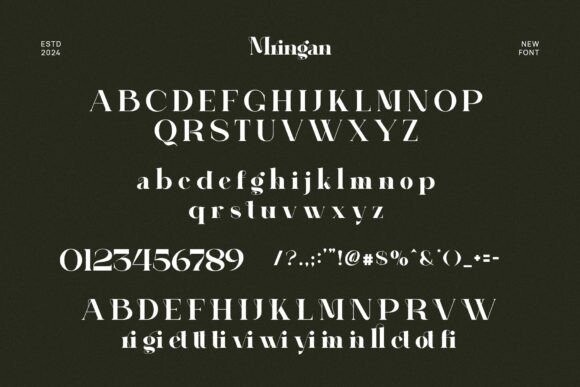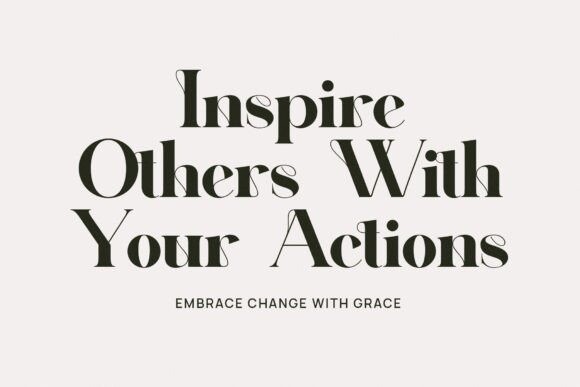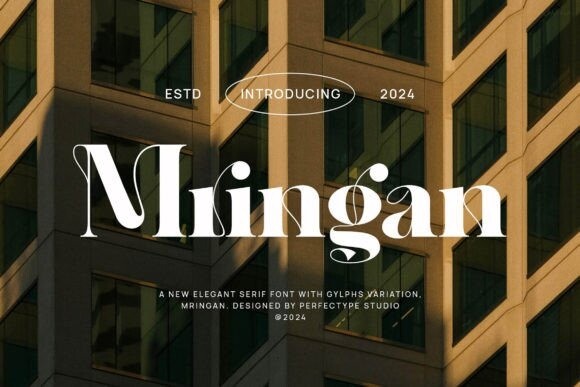
Mringan Font
Mringan Font is a stylish and fashionable serif typeface designed for the modern designer. Its sleek lines and elegant curves exude sophistication, making it perfect for editorial layouts, branding, and luxury packaging. With its versatility and timeless appeal, Mringan adds a touch of class to any design project.